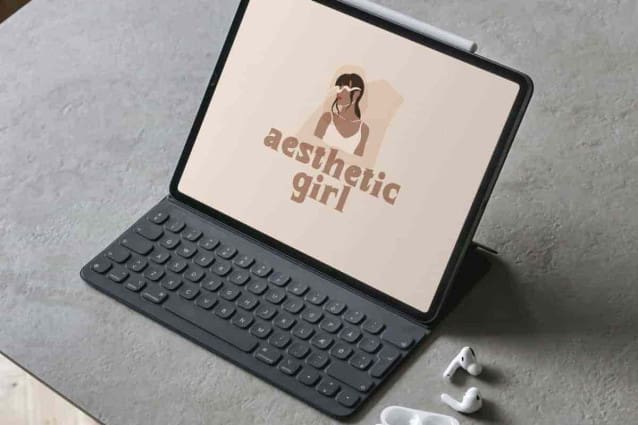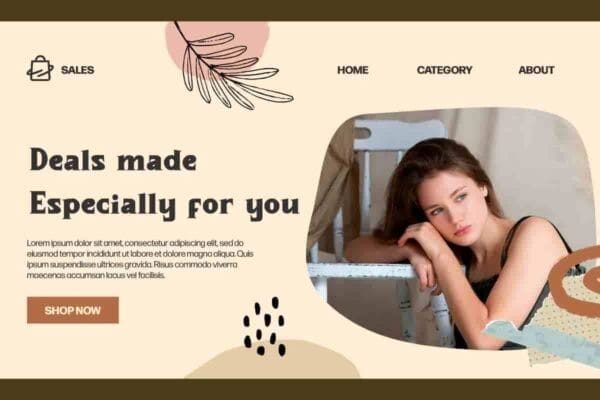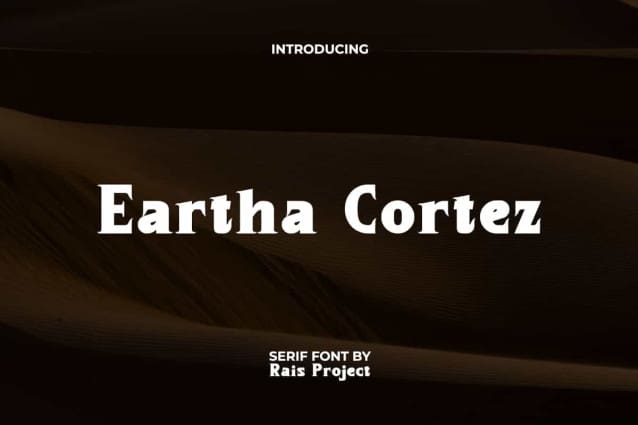
Eartha Cortez Font
Eartha Cortez Font is a playful classic retro Serif font that stand out by RaisProject.This serif font has thick characters with sharp edges to making it stand out. It will look good on invitation, stationery, poster, custom design, product packaging, advertisement, label, marketing material, website page, and more!